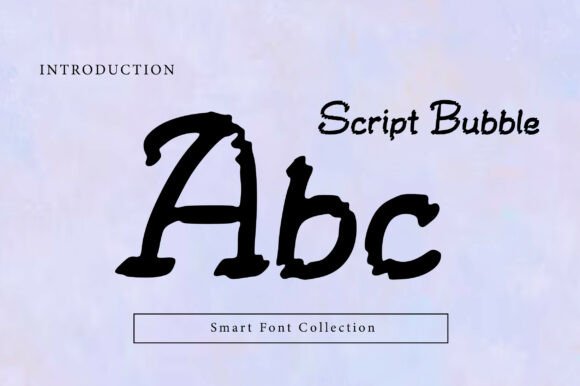
Introduction to Script Bubble Font
Have you ever sat at your desk, pencil in hand, and let your creativity flow onto the page in a messy, beautiful script? That’s the magic of the Script Bubble Font, a unique decorative typeface that captures the essence of a handwritten note. With its fluid motion and textured, hand-drawn weight, this font is the perfect design resource for anyone looking to add a touch of whimsy to their creative project.
Whether you’re designing a boutique product label or a social media quote, the Script Bubble Font provides a high-quality, transparent background that lets your design shine. And the best part? It’s free to download, making it an invaluable resource for designers of all levels. In this article, we’ll dive into the world of the Script Bubble Font and explore why it’s a must-have for any creative project.
Key Features of Script Bubble Font
- High-quality design resource for creative projects, perfect for adding a touch of elegance to any design.
- Comes with a transparent background, allowing for seamless integration into any design.
- Font size ranges from 12 to 100 points, making it suitable for various design applications.
- Resolution is 300 DPI, ensuring crisp and clear display of the font, even at larger sizes.
- Unique, cursive script design with a bubbly, whimsical feel, perfect for adding a playful touch to any creative project.
Honest Review: Script Bubble Font
I recently stumbled upon the Script Bubble Font, a beautiful and elegant design resource that I just had to share with you all. As a designer, I’m always on the lookout for high-quality fonts that can elevate my creative projects.
- ✨ Beautiful, cursive script style that’s perfect for titles and headings
- ✨ High quality, with smooth lines and a transparent background that makes it easy to use
- ⚠️ Limited character set, which may make it less suitable for longer blocks of text
- ⚠️ May require some adjustment to get the font to sit well on certain backgrounds
Overall, I’m really impressed with the Script Bubble Font. While it may not be perfect, it’s a great addition to any designer’s toolkit. With a little creativity, it can really help take your projects to the next level.
The Script Bubble Font is commonly used in wedding invitations, birthday cards, and other creative projects that require a unique and elegant touch. It’s also ideal for designers looking for a high-quality font with a transparent background.
To get the most out of the Script Bubble Font, experiment with different font sizes, colors, and combinations to achieve the desired effect. You can also pair the font with other design elements to create a unique and eye-catching design.